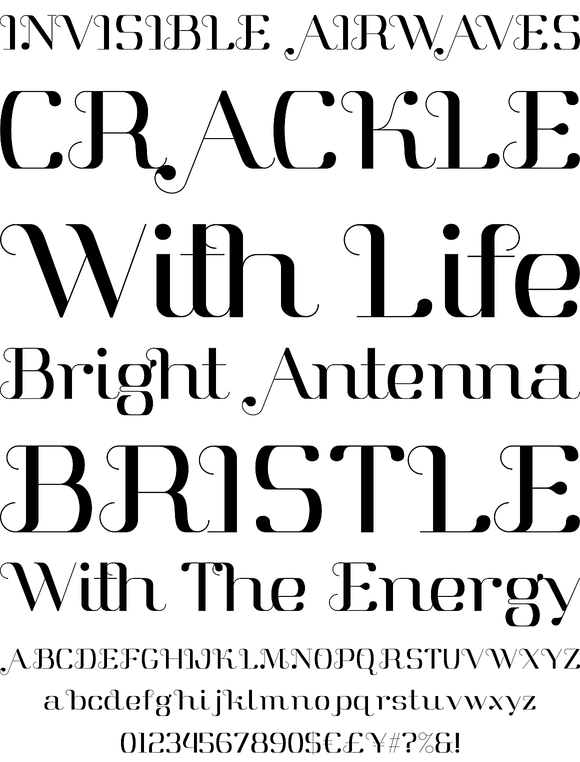
Foundry: Fontfabric
Aston is a fantastic serif display typeface which is applicable for any type of graphic design - web, logo, print, motion graphics, etc. This font is unique and fresh with it`s creatively implemented organic elements.